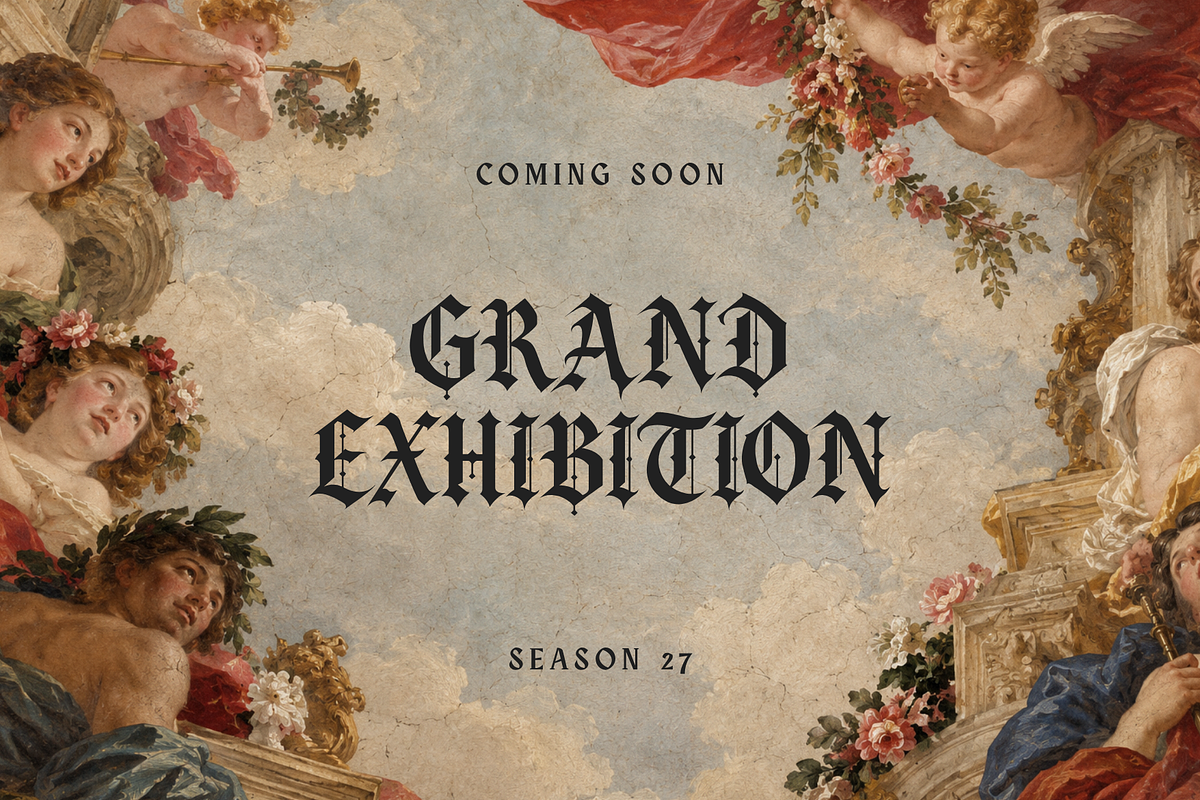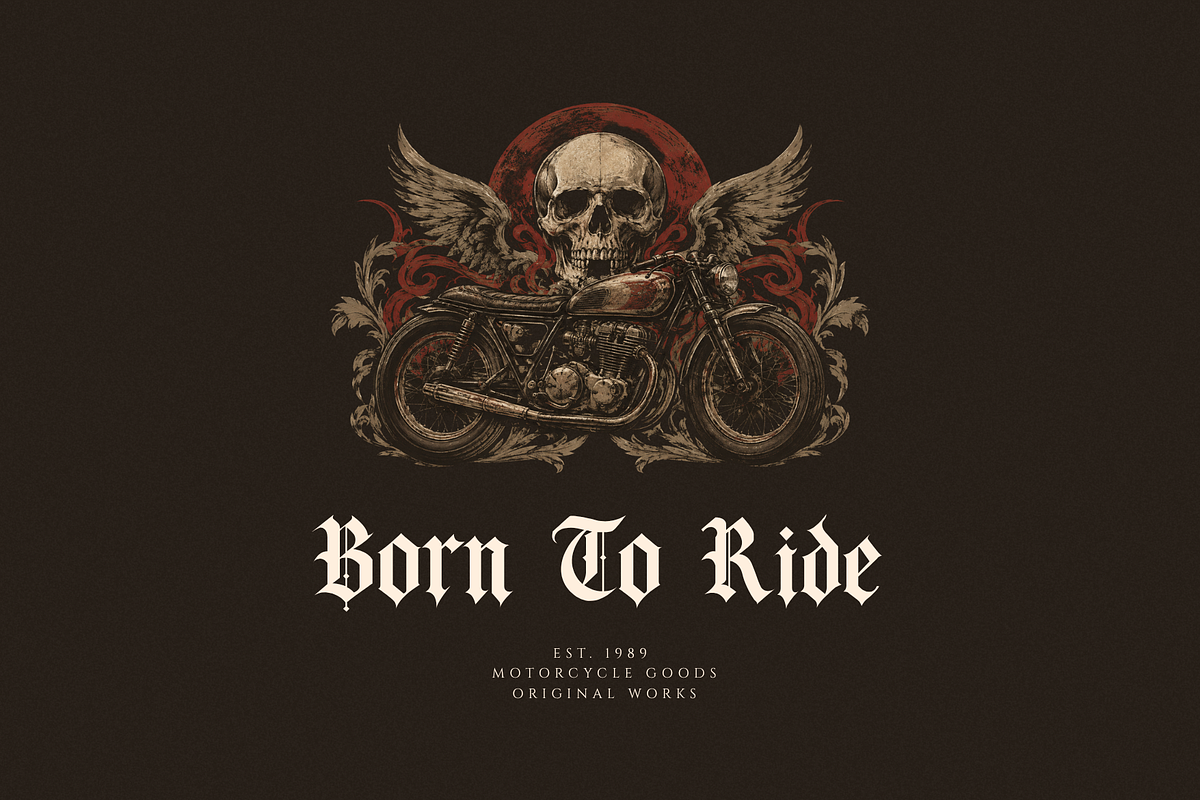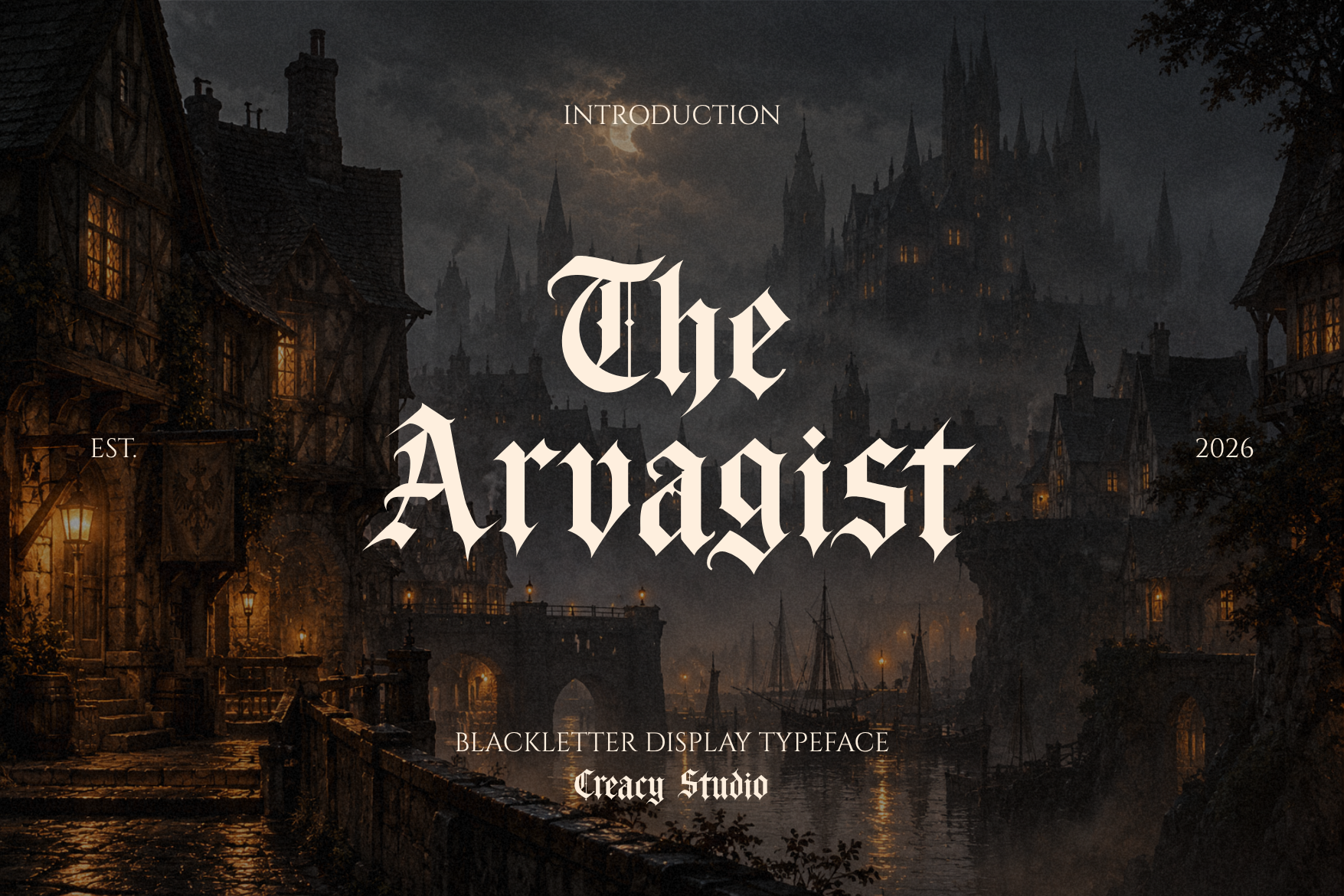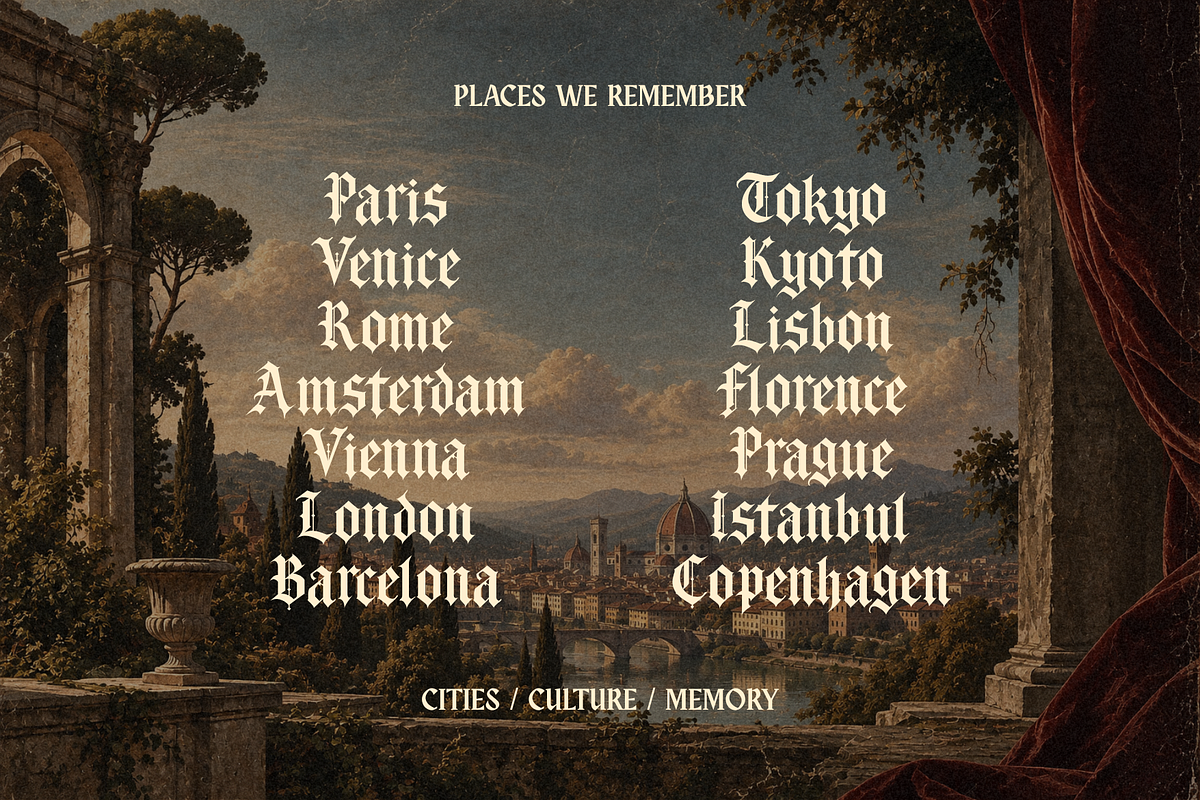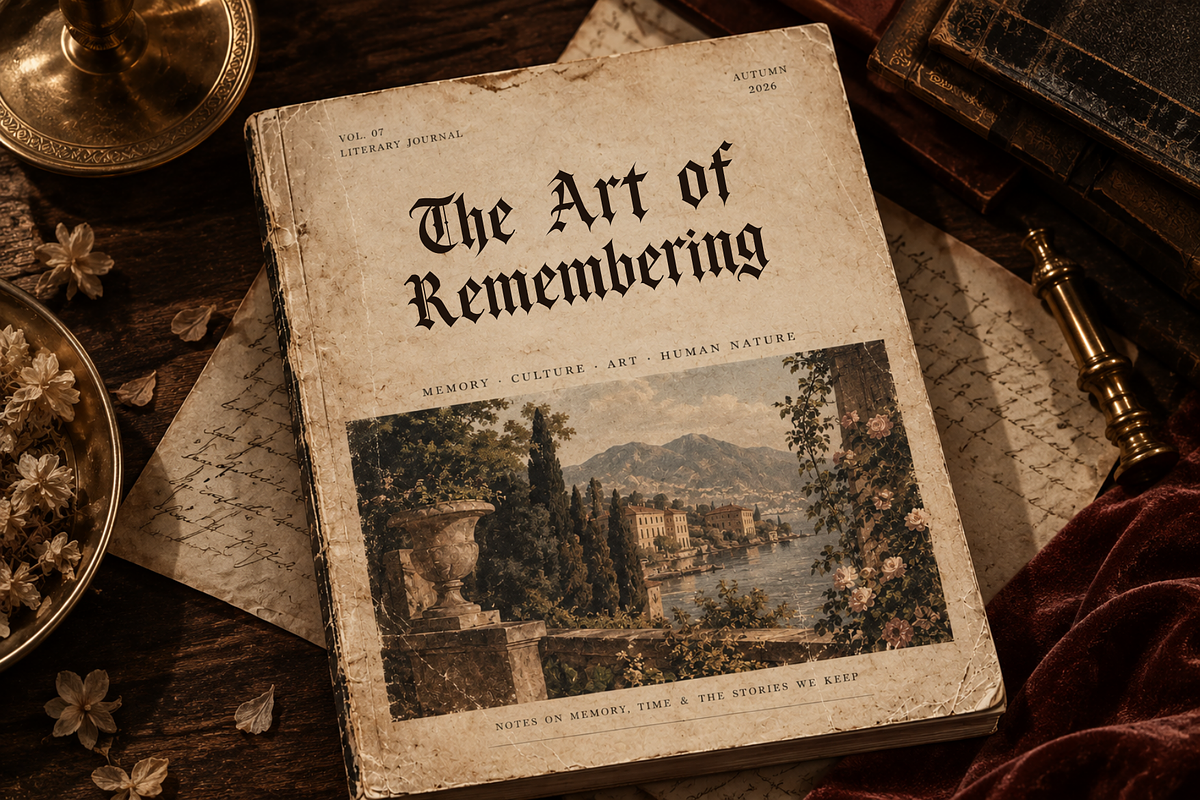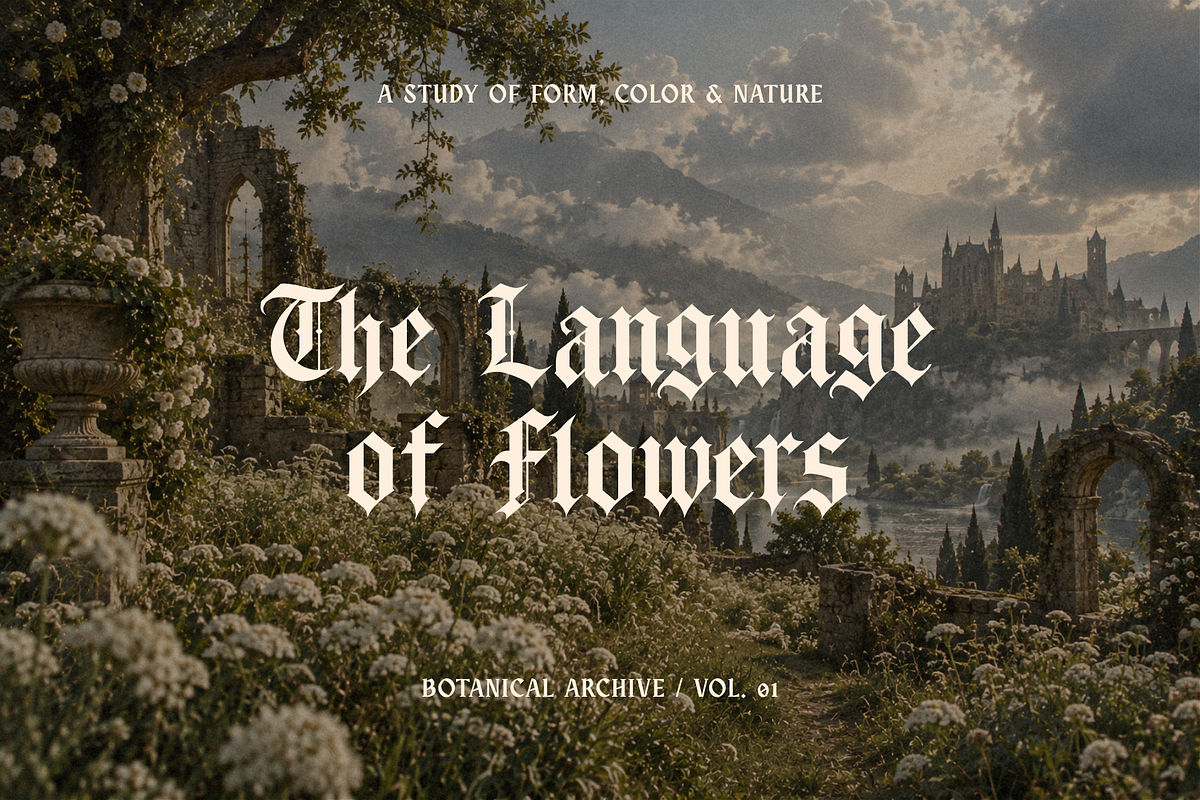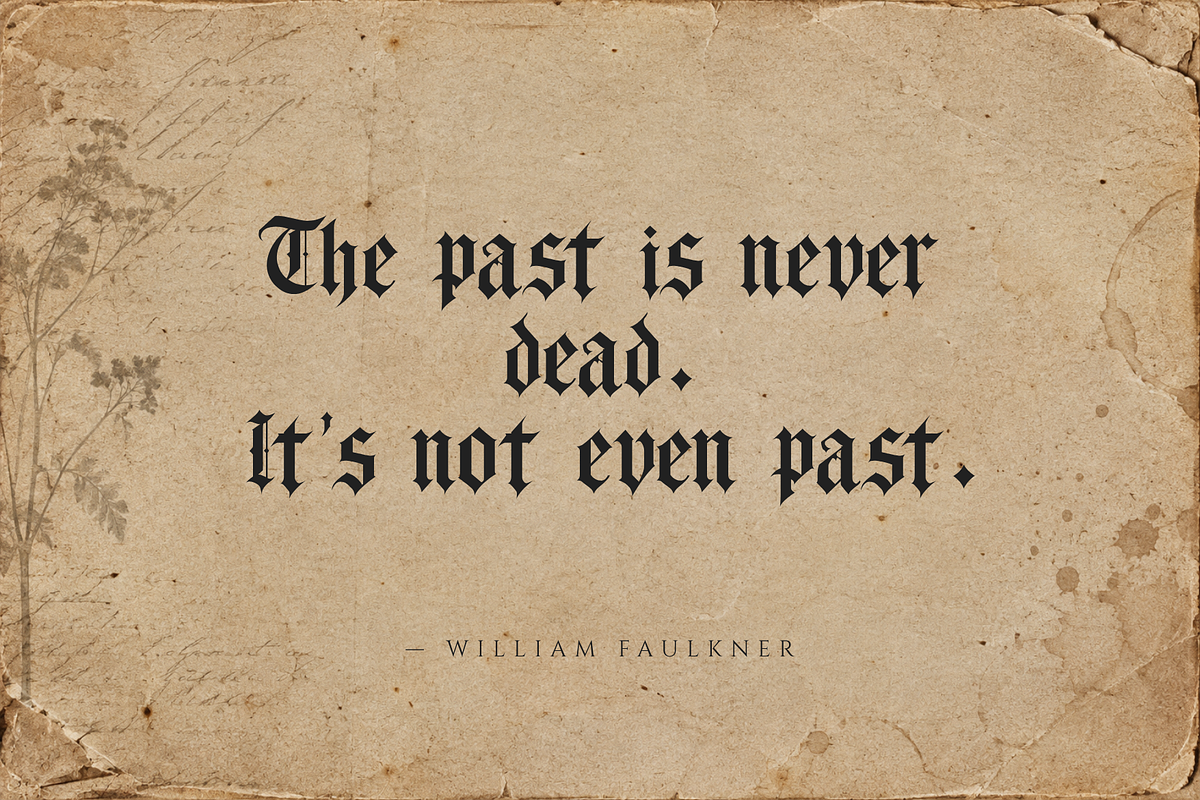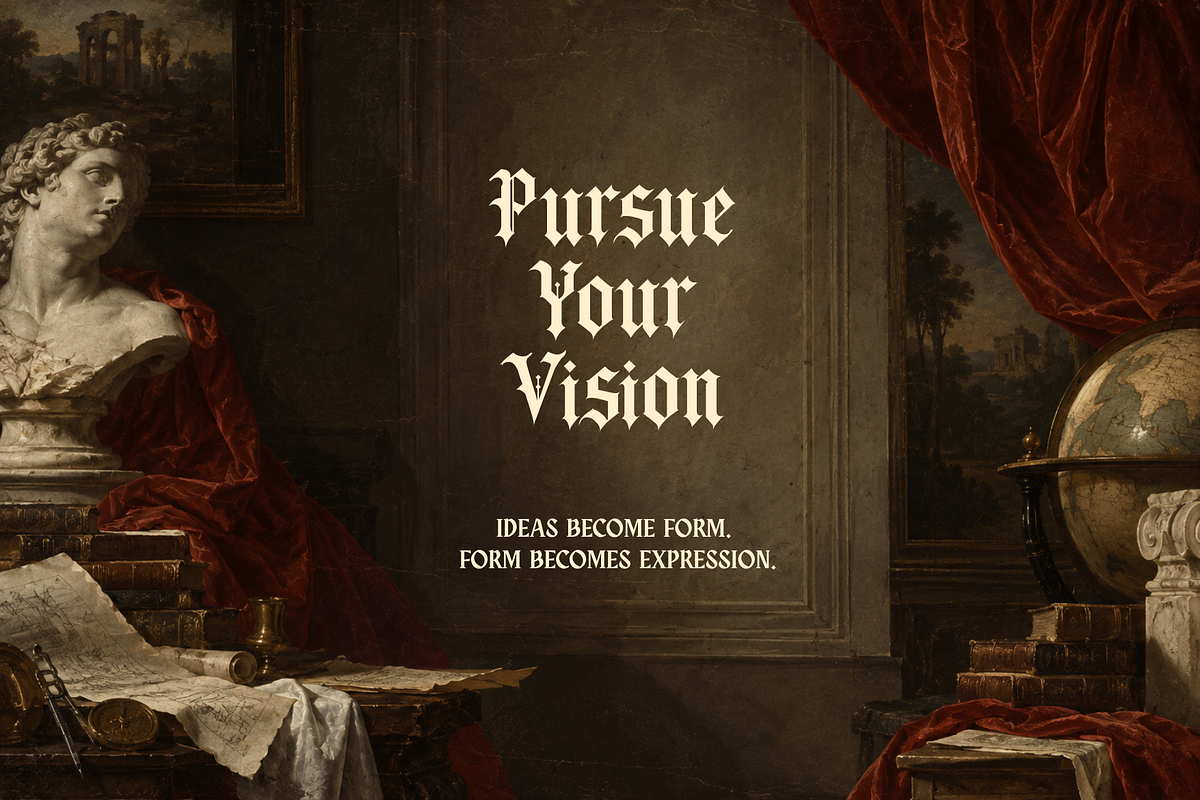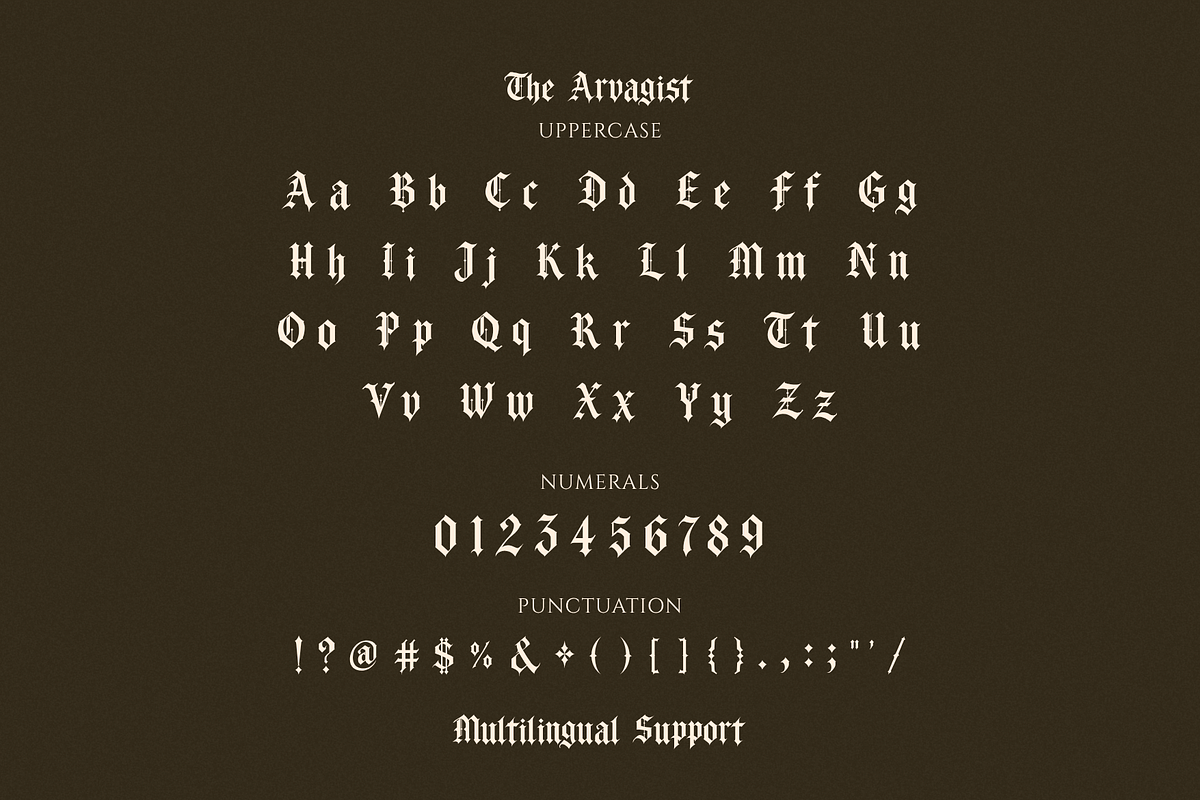
The Arvagist Blackletter Font
The Arvagist is an ornate blackletter display typeface inspired by medieval manuscripts, old-world architecture, classical art, and the atmosphere of forgotten kingdoms.
With its bold blackletter structure, sharp angular forms, dramatic proportions, and distinctive ornamental details, The Arvagist brings a strong historical character to modern visual design. Its dense rhythm and commanding presence make it especially effective when typography needs to become the visual centerpiece.
Designed primarily for display use, The Arvagist works beautifully across a wide range of expressive projects—from heritage-inspired branding and editorial covers to fashion graphics, posters, album artwork, packaging, apparel, and fantasy-inspired identities.
Its character feels equally at home in an ancient manuscript, a medieval archive, a luxury editorial, or a contemporary graphic composition. Whether used to create a dramatic wordmark or a striking headline, The Arvagist adds an unmistakable sense of history, atmosphere, and craftsmanship.
Branding & Logo Design
Editorial & Magazine Covers
Posters & Art Prints
Fashion & Apparel
Packaging
Album & Music Artwork
Tattoo & Merchandise Design
Historical & Heritage Projects
Fantasy & Medieval Artwork
Event & Festival Graphics
Social Media & Digital Graphics
Uppercase & lowercase characters
Numerals
Punctuation & symbols
Bold blackletter display style
Distinctive medieval-inspired letterforms
Designed for impactful display typography
The Arvagist is made for designers looking to give their work a sense of heritage, mystery, grandeur, and timeless character.